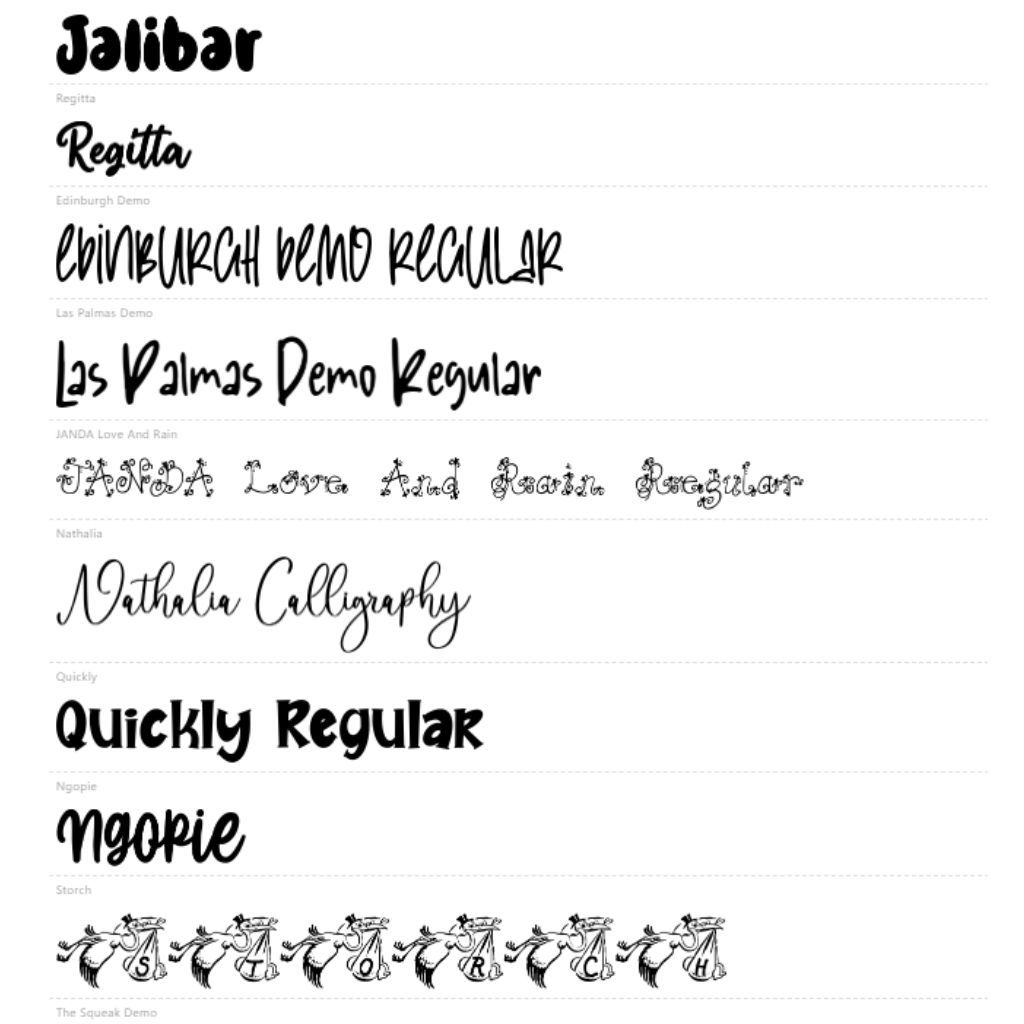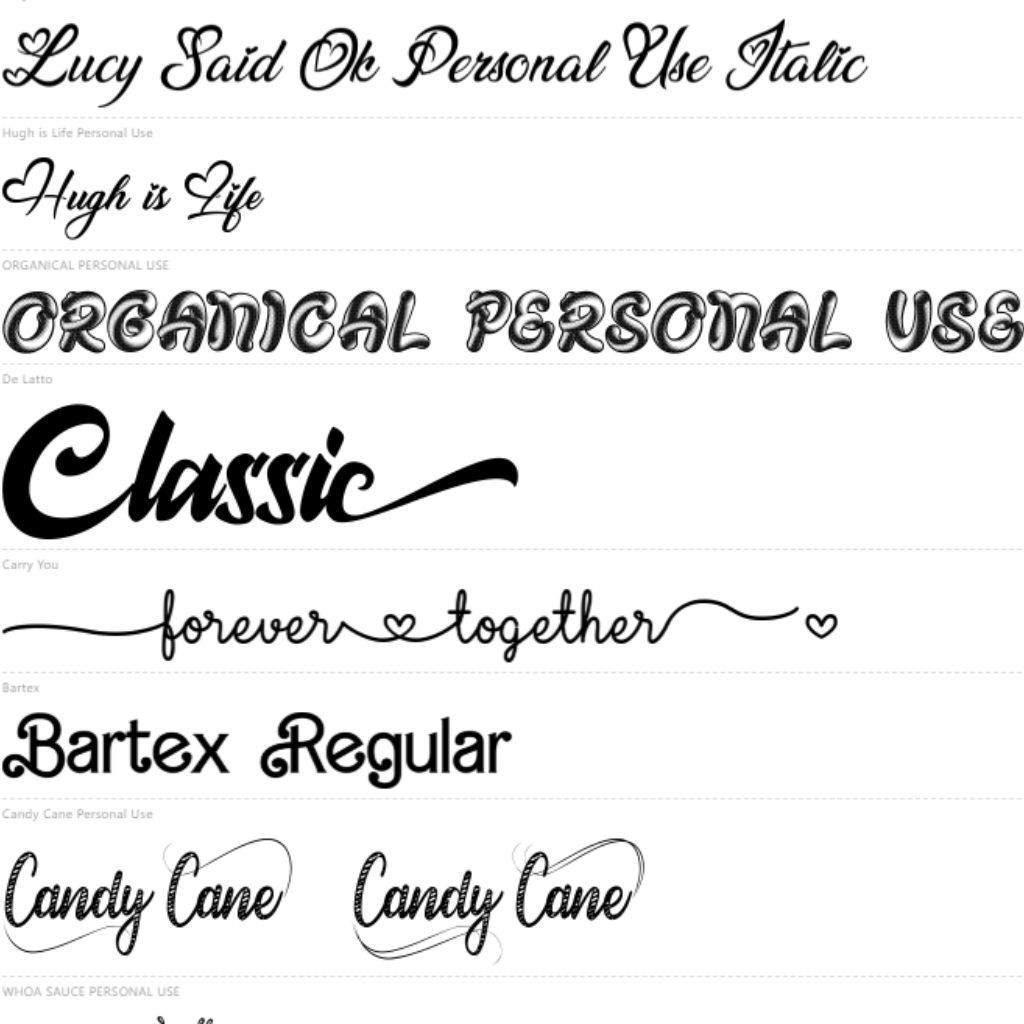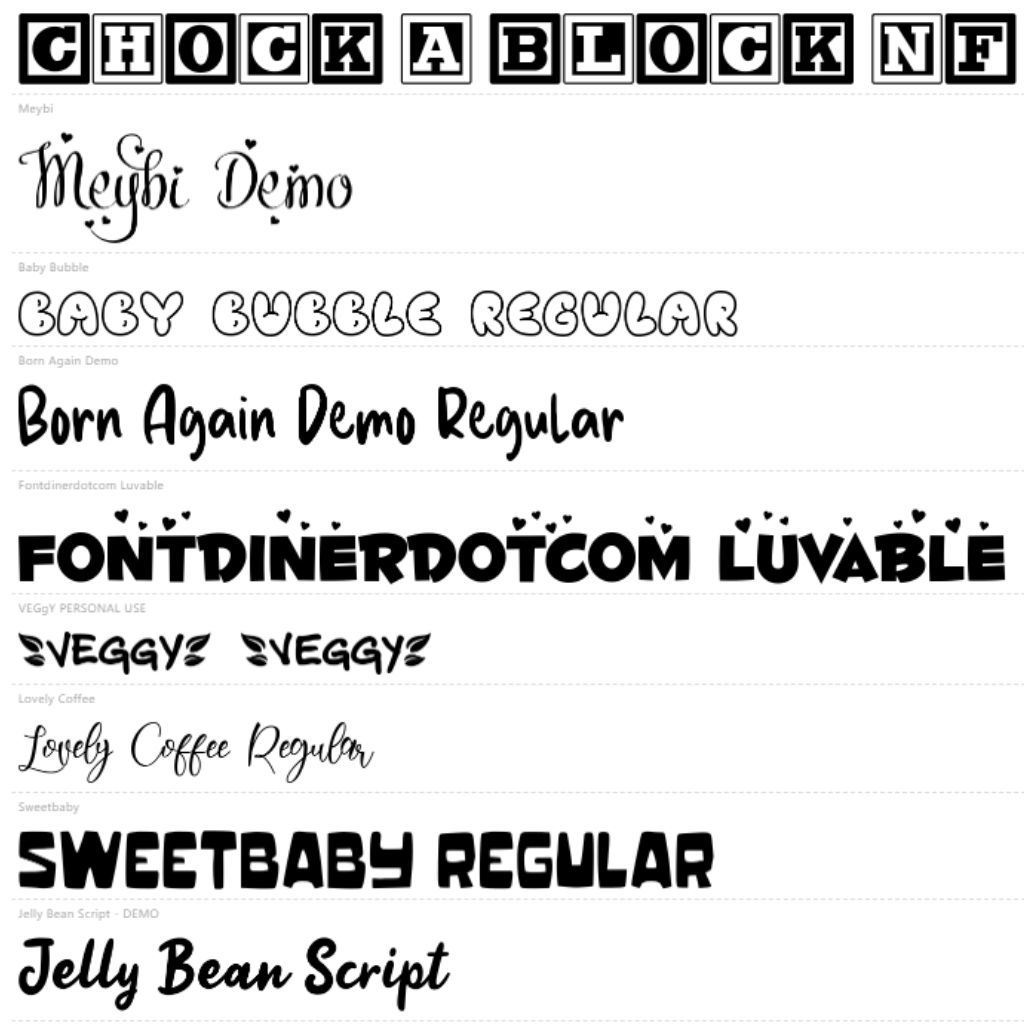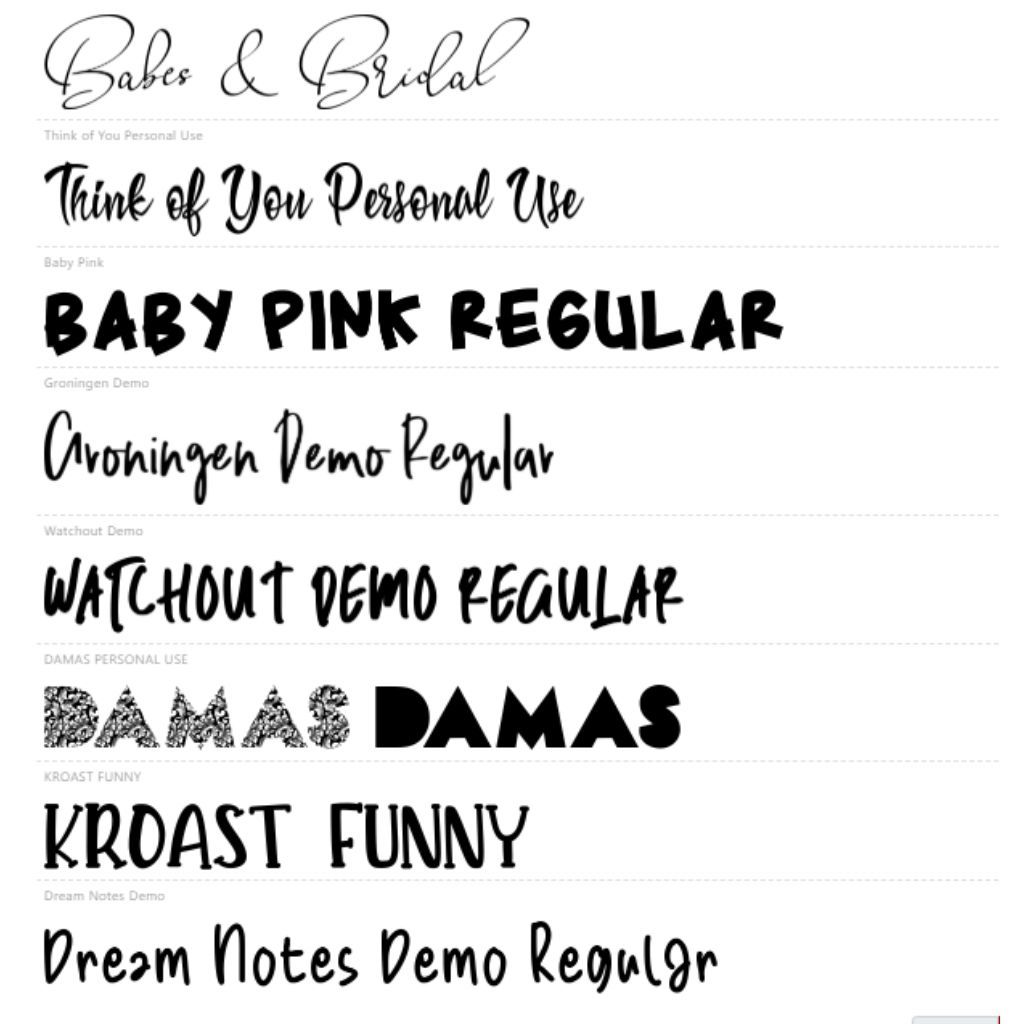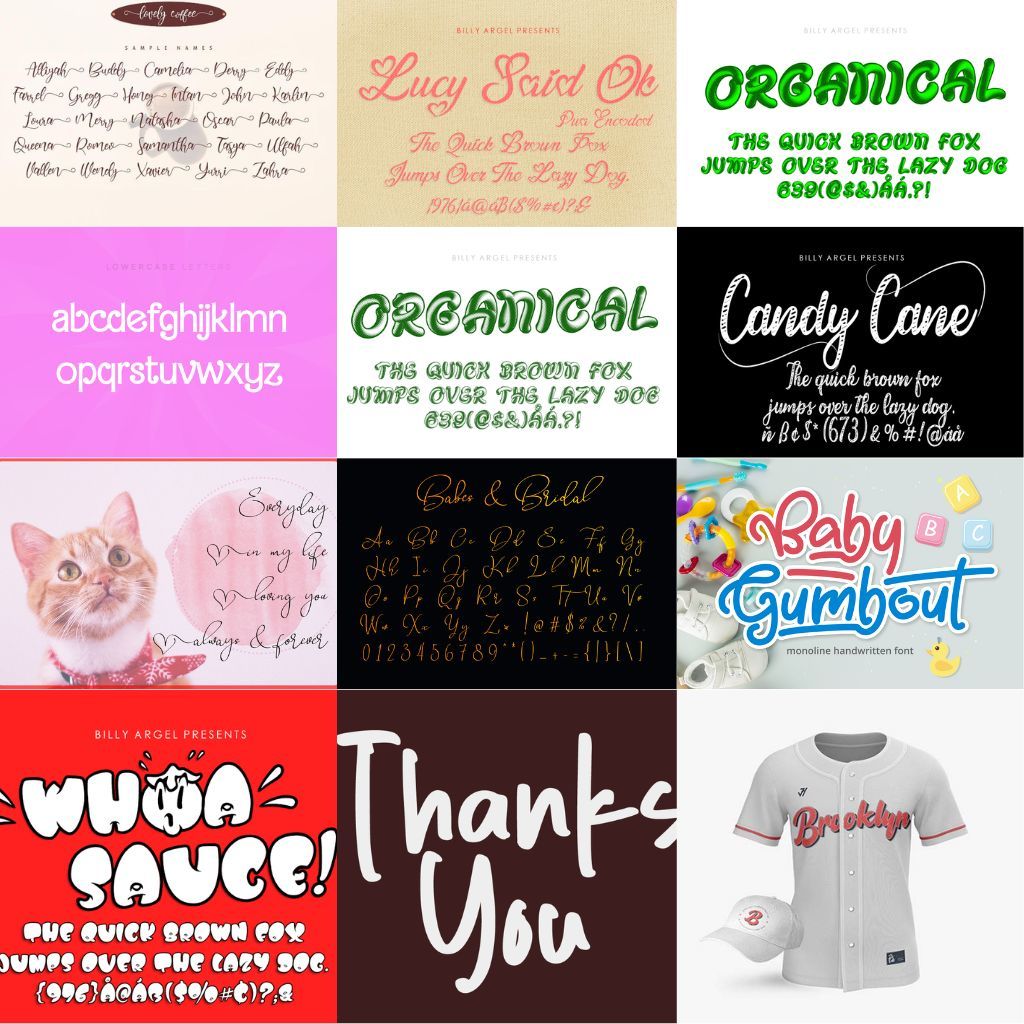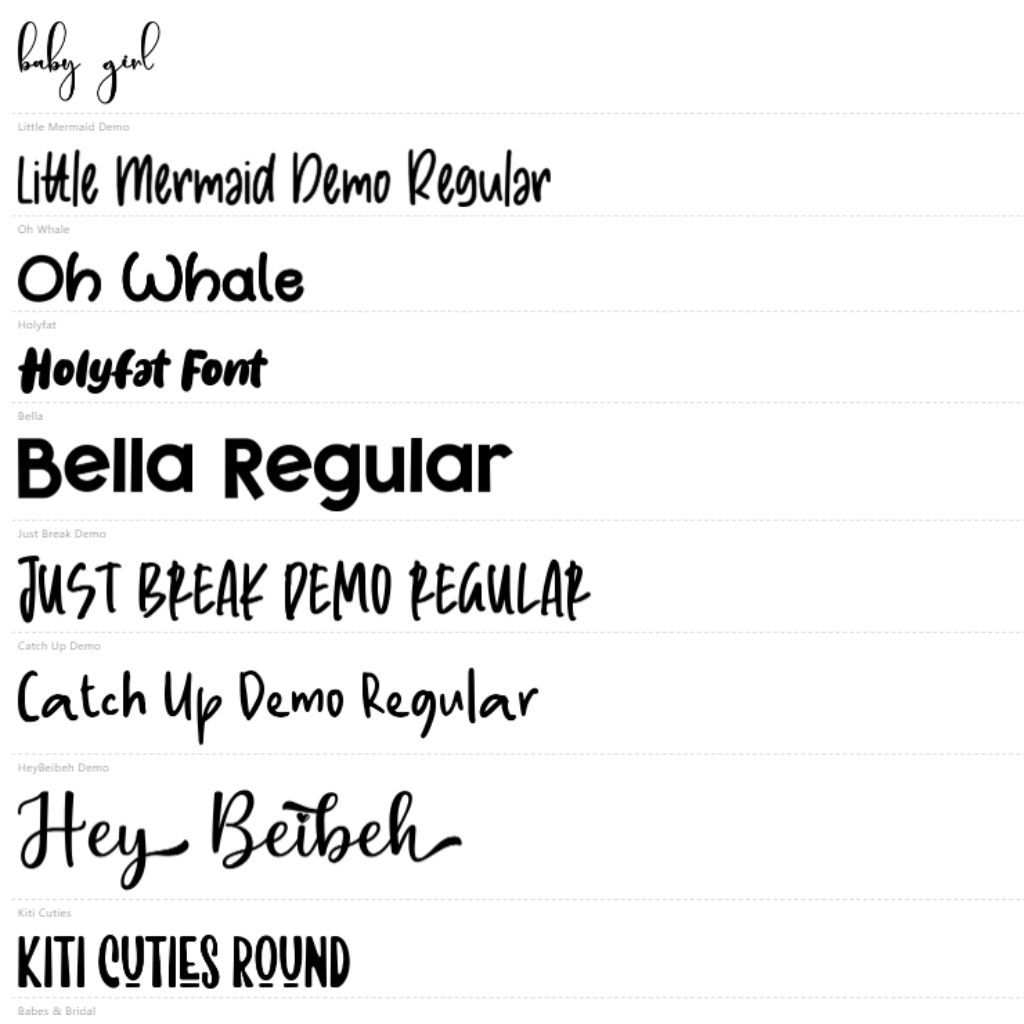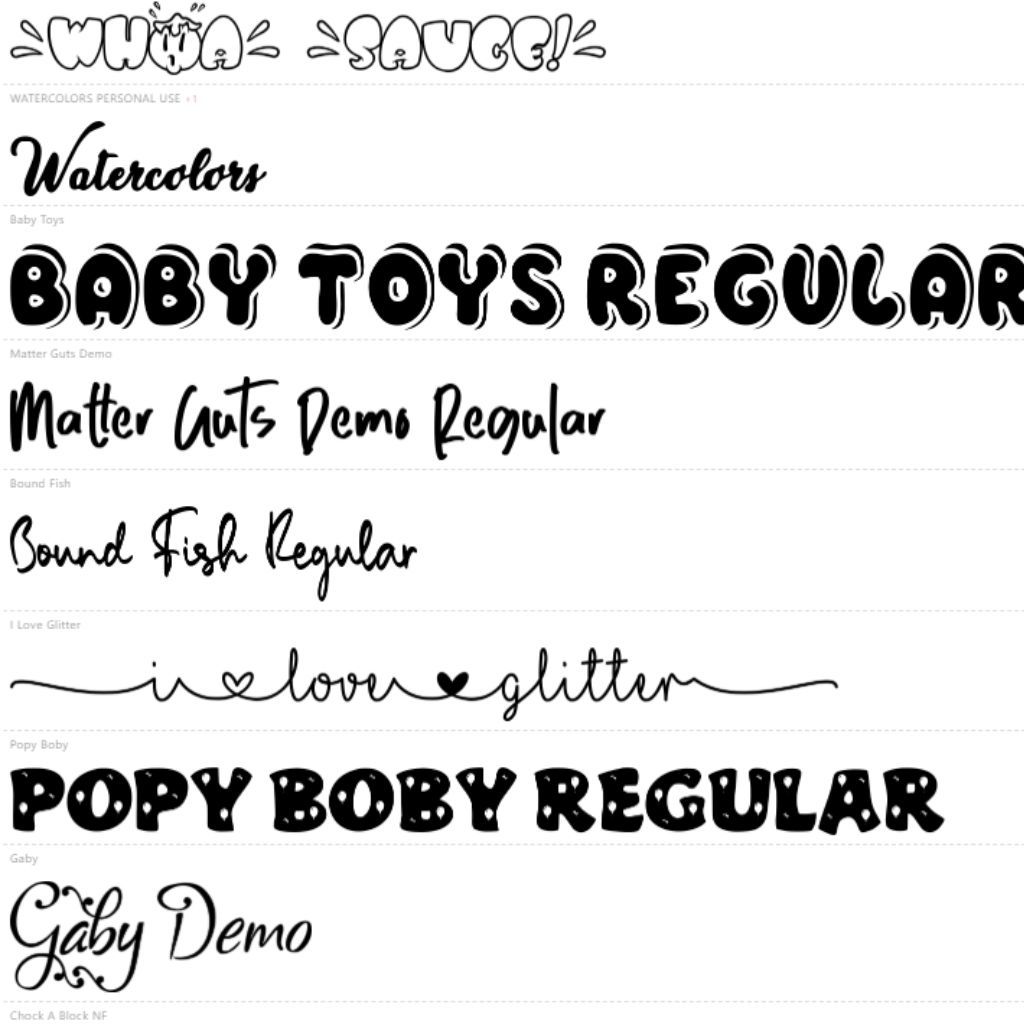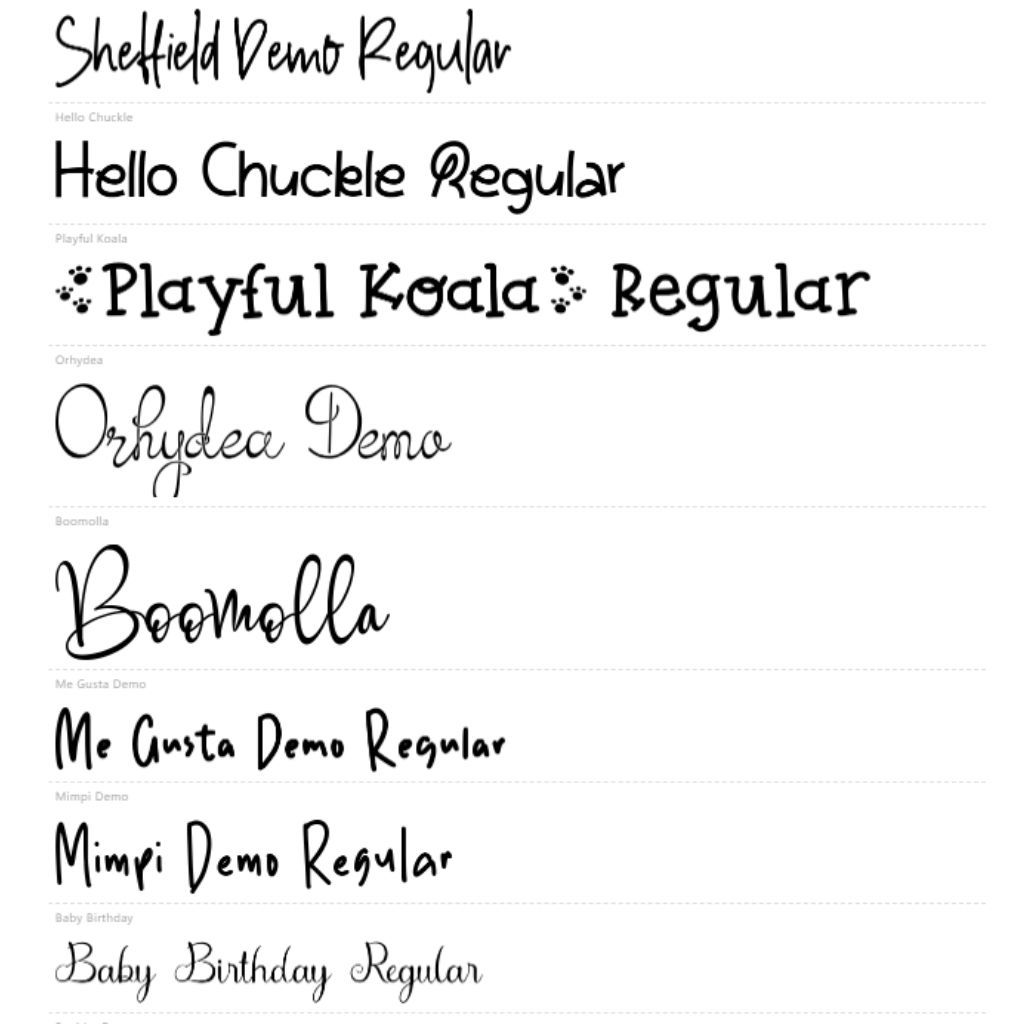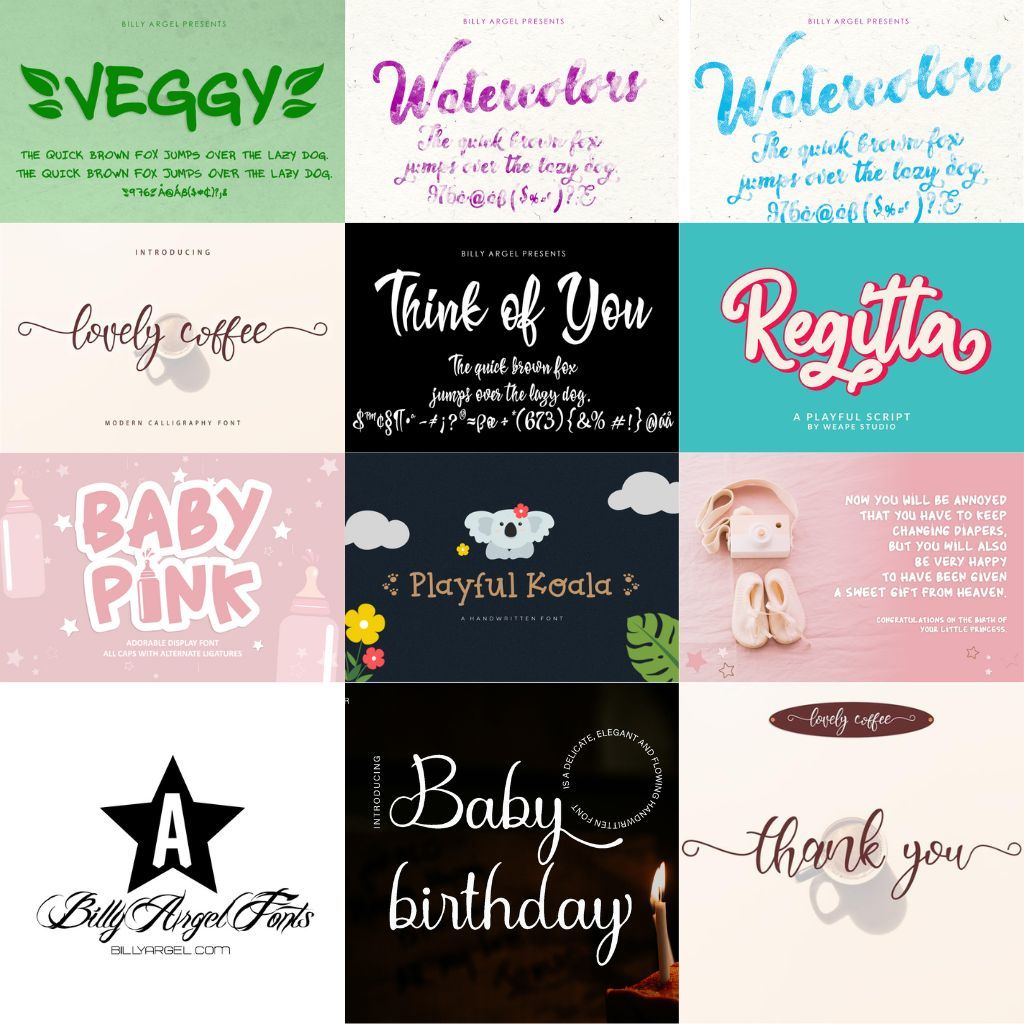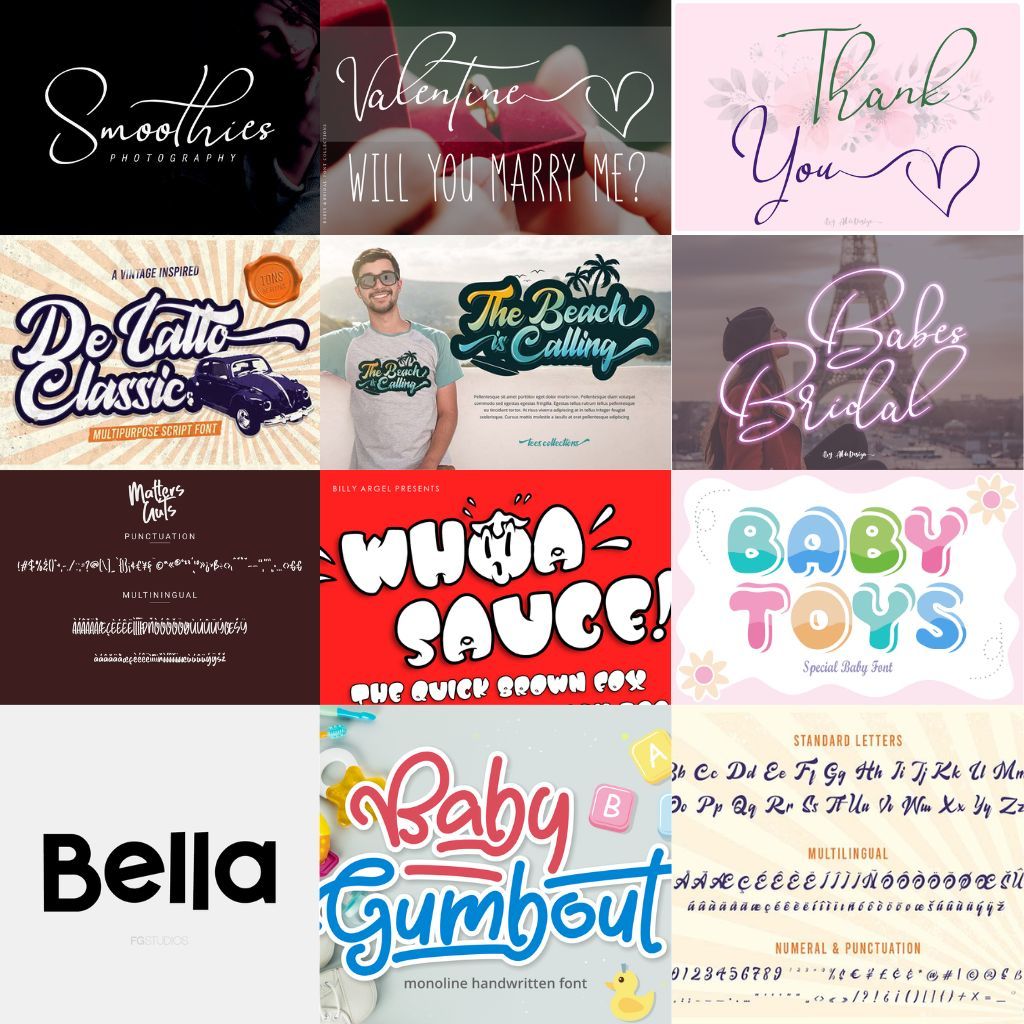
Introducing our Baby Shower Fonts collection, a delightful ensemble of whimsical typography that sets the perfect tone for celebrating new beginnings. Each font is crafted with the joyous anticipation of a baby's arrival in mind, featuring playful curves and charming embellishments that evoke warmth and tenderness. Imagine transforming your invitations, decorations, and party favors into artistic masterpieces each stroke is like a brush capturing the essence of innocence and wonder.
The soft, inviting lines of these fonts are designed to harmonize with any color palette, ensuring versatility no matter your theme. Whether you're envisioning a rustic garden party or a sleek, modern gathering, our Baby Shower Fonts adapt effortlessly, adding a layer of elegance and fun. Think of them as a ready-to-use celebration tool, bringing a touch of creativity and love to every printed or digital detail of your special event. Perfectly balanced between style and functionality, they invite friends and family into your joy filled occasion with flair and grace.